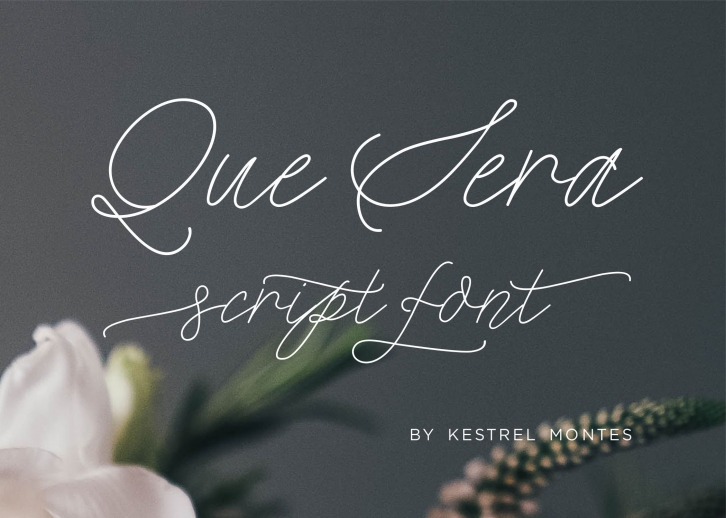
Que Sera is a modern monoline script font handlettered by Kestrel Montes. The flowing lines and optional initial and terminal swashes make this font perfect for invitations, logos and other special projects.
• Pretty initial and terminal swashes for extra adornment